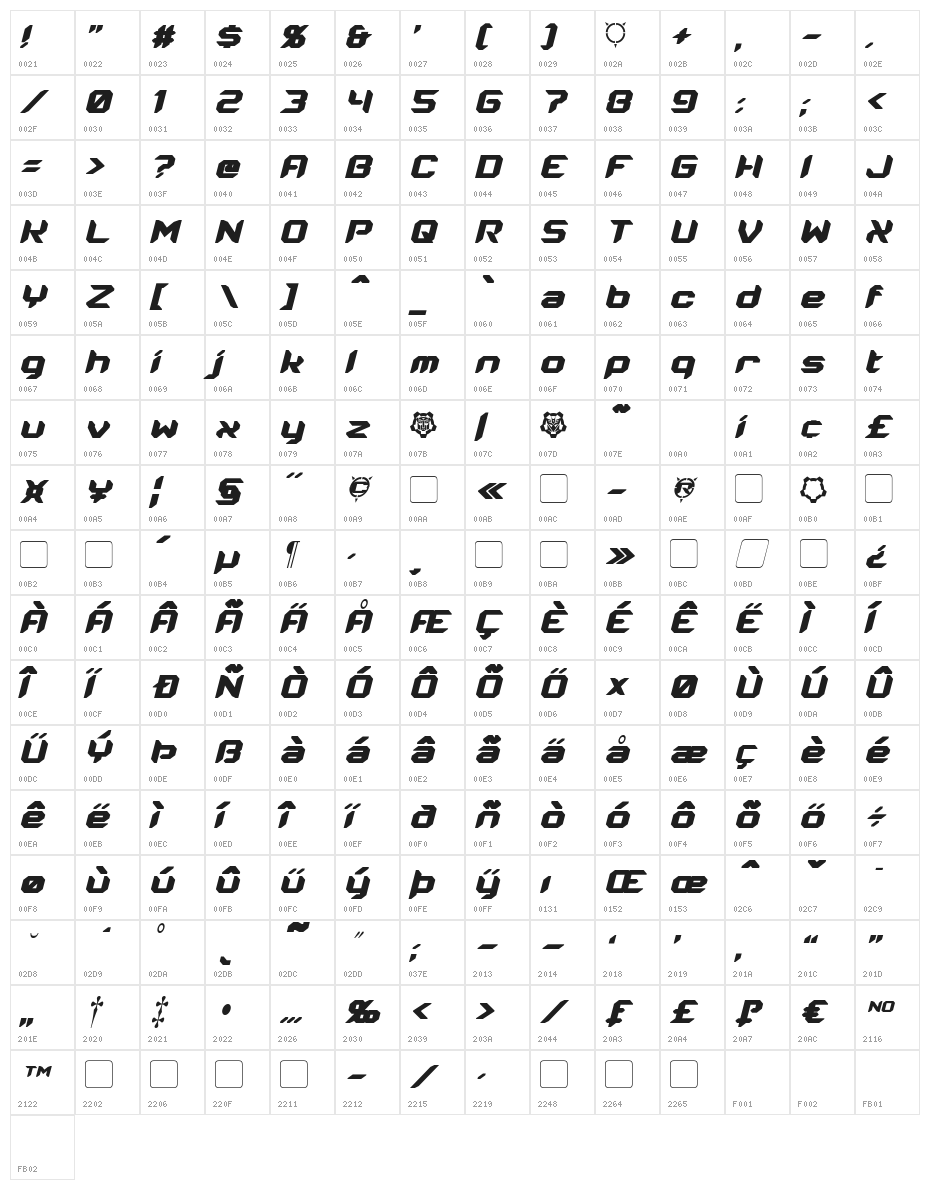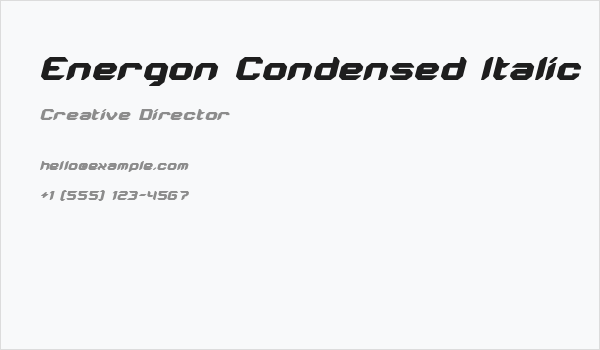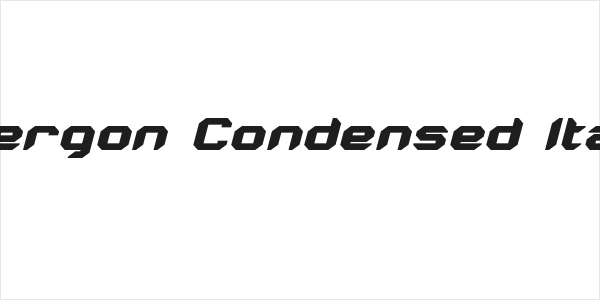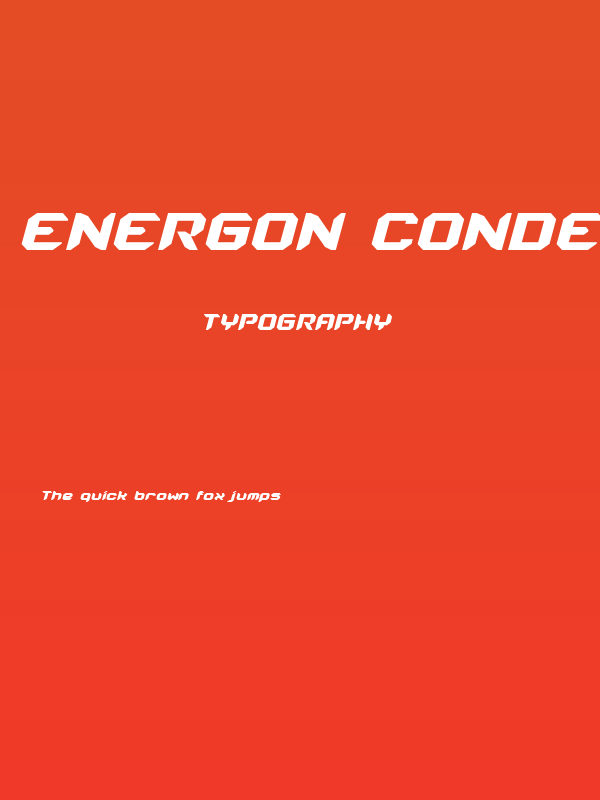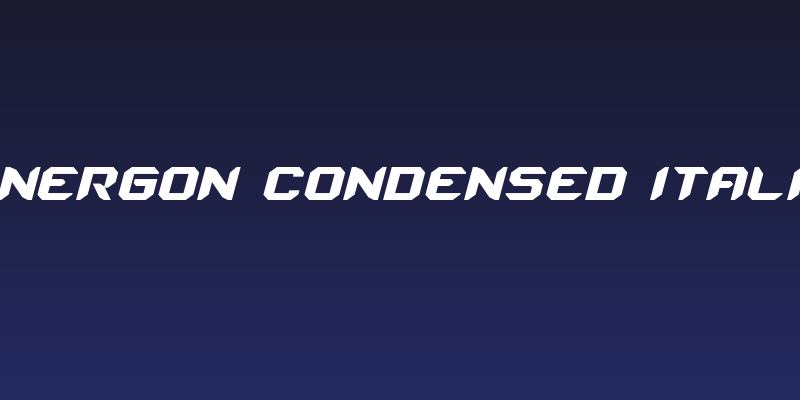
Energon Condensed Italic Font
Energon Condensed Italic Description
This font features a futuristic and angular design, characterized by sharp edges and a condensed form. The italic style adds a dynamic and forward-leaning appearance, enhancing its modern and energetic feel. The uppercase and lowercase letters maintain a consistent geometric structure, with each character exhibiting a distinct angularity that suggests motion and speed. The numerals and special characters follow the same design principles, ensuring uniformity across all glyphs. The overall aesthetic is bold and impactful, making it suitable for projects that require a strong visual presence.